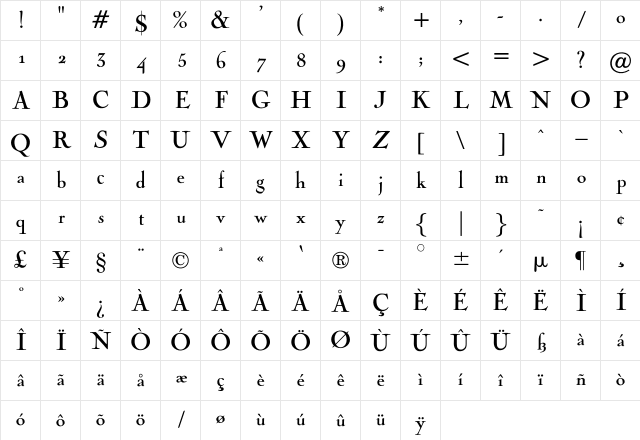
OPTINaval Regular
Design Context for OPTINaval
OPTINaval is a composed and adaptable typeface that performs quietly and consistently across a wide range of design contexts.